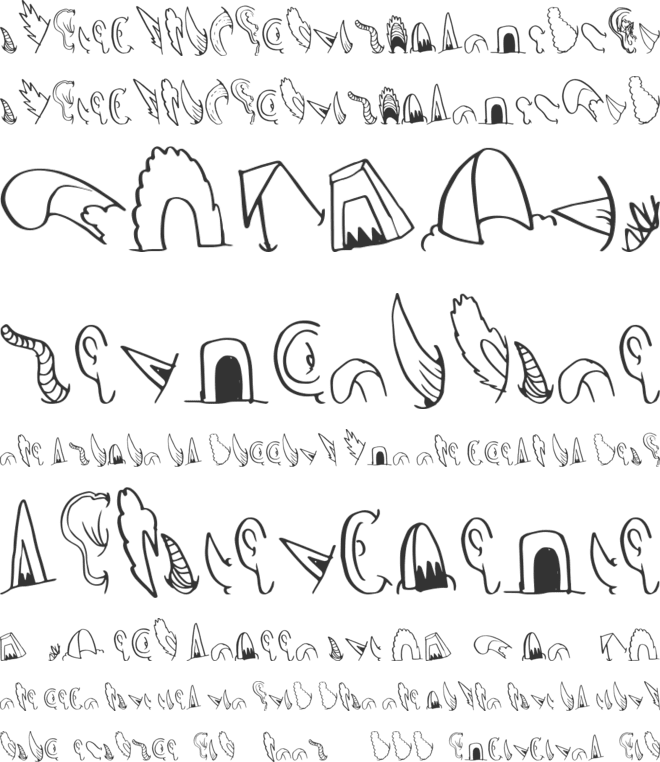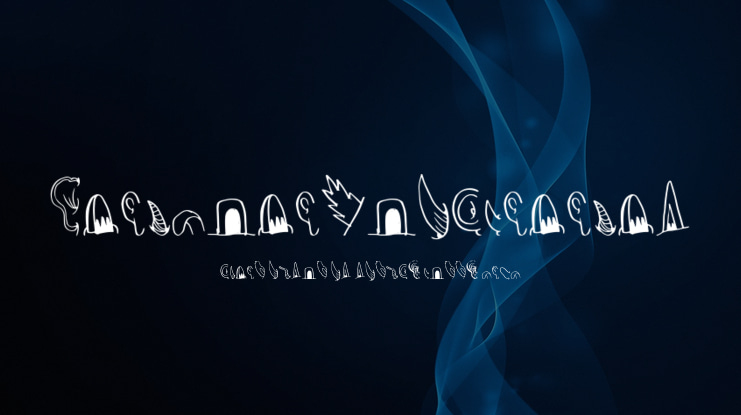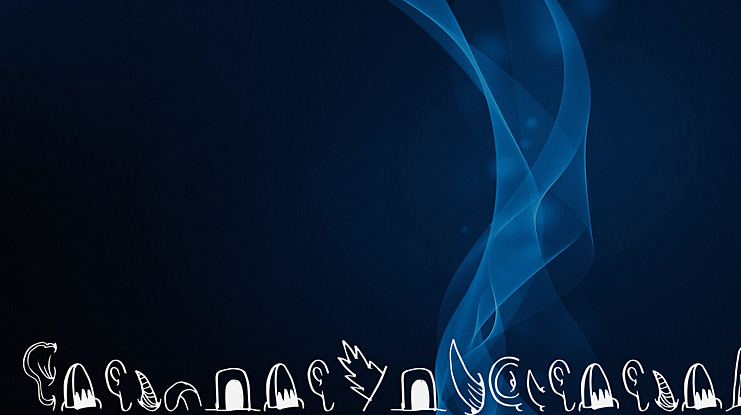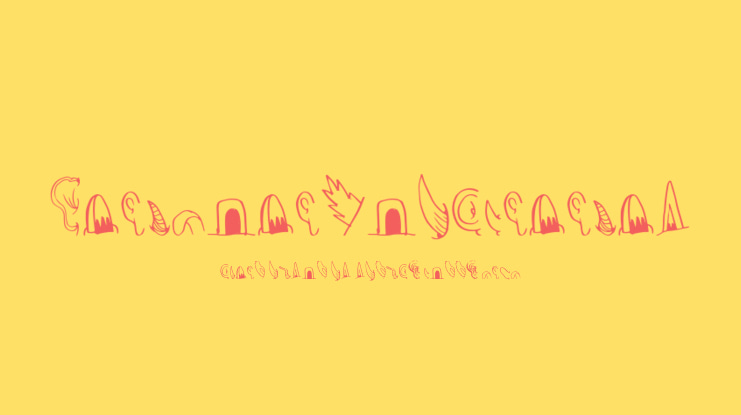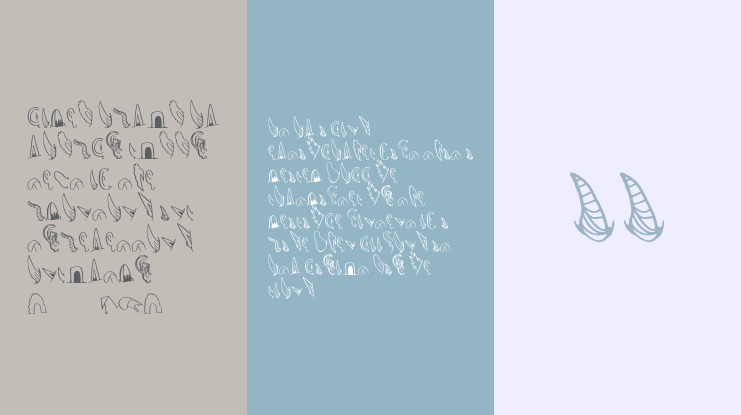
CreatureBuilderEars Font Family
CreatureBuilder by Xerographer Fonts
This Halloween Build a Creature With Creature Builder. Includes Nose, Eyes, Mouth and Ears